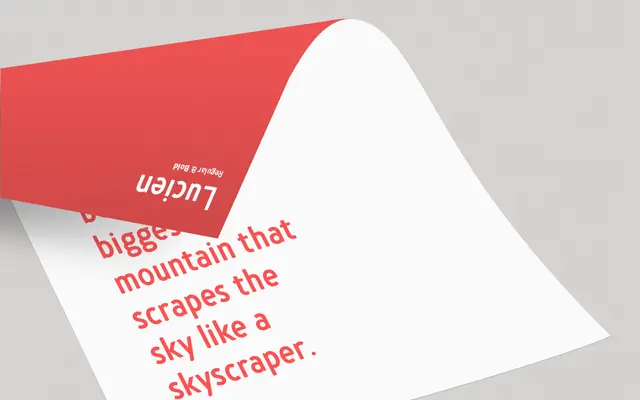
Lucien
Regular Bold Italic · Jeff Schreiber
A condensed sans serif with rounded corners from Jeff Schreiber, offered in two weights and suited to display work.
The rounded terminals give Lucien a mild, approachable quality that separates it from harder-edged condensed display faces. Coverage extends to uppercase, lowercase, diacritical marks, punctuation and numbers, with files supplied as WOFF, SVG, TTF and OTF. With only two weights and no italic, the family is limited in scope but functional for short-form display and headline settings.
A condensed sans serif with rounded corners marketed primarily for display use, distinguishing it from text-oriented grotesque or humanist sans families.